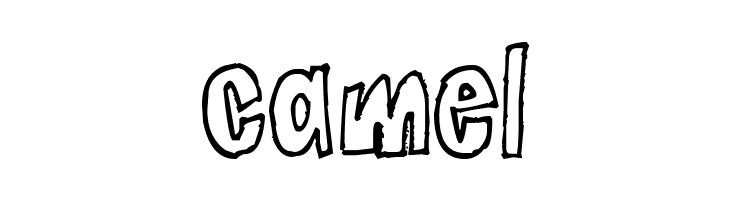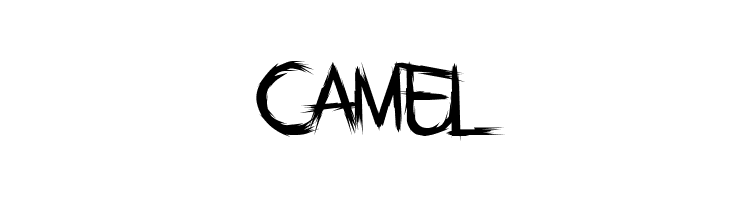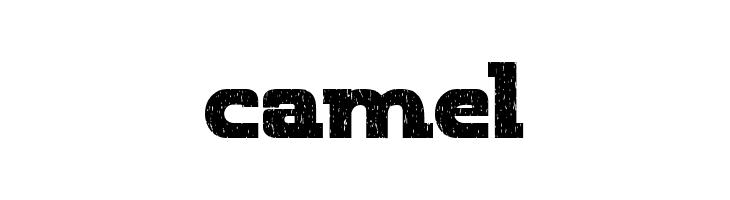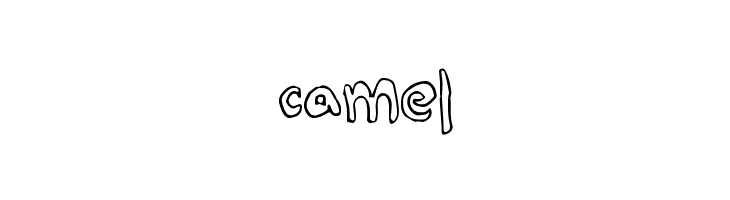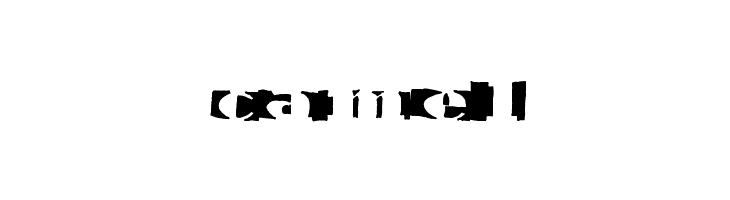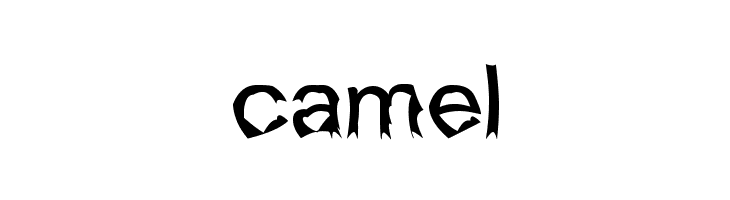
A futuristic, geometric font with bold, angular letterforms.
A playful, rounded font with a hand-drawn, balloon-like appearance.
A bold, futuristic font with geometric shapes and sharp angles.
A playful, handwritten font with dynamic strokes and a casual style.
A bold, geometric font with a strong, angular design.
A bold, stencil-style font with geometric shapes and industrial appeal.
A bold, geometric stencil font with an industrial aesthetic.
A bold, geometric font with an industrial and modern design.
A bold, geometric font with an industrial, technical style.
A bold, gothic-inspired font with sharp, angular edges.
A bold, geometric font with a futuristic and impactful design.
A bold, 3D geometric font with a futuristic and dynamic style.
A bold, 3D geometric font with a futuristic and industrial style.
A bold, 3D italic font with a futuristic and geometric style.
A bold, italicized 3D font with a futuristic and dynamic style.
A bold, 3D geometric font with a futuristic and outlined style.
A bold, geometric font with a three-dimensional effect and strong presence.
A bold, italicized font with a futuristic, outlined style.
Bold, italicized font with angular, dynamic design and contrasting outlines.
A bold, futuristic font with sharp angles and a geometric design.
A bold, futuristic italic font with a double-layered outline and geometric shapes.
A bold, italicized font with a futuristic, geometric design and outlined characters.
A bold, futuristic font with geometric outlines and strong visual impact.
A bold, geometric font with a three-dimensional outline.
A bold, geometric font with a beveled, three-dimensional look.
A bold, italicized font with a beveled, three-dimensional style.
A bold, futuristic font with a chrome-like, layered design.
A bold, italicized font with a futuristic chrome effect and dynamic lines.
A bold, geometric, and condensed font with a futuristic and industrial aesthetic.